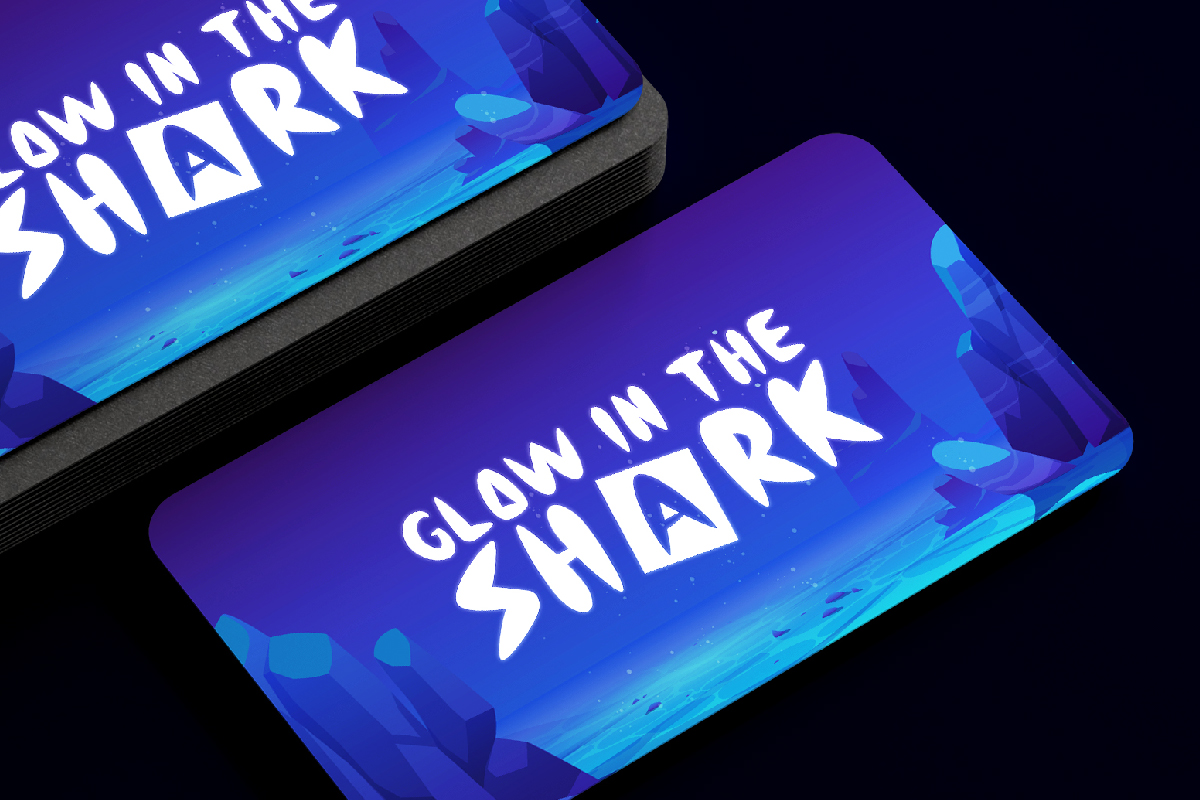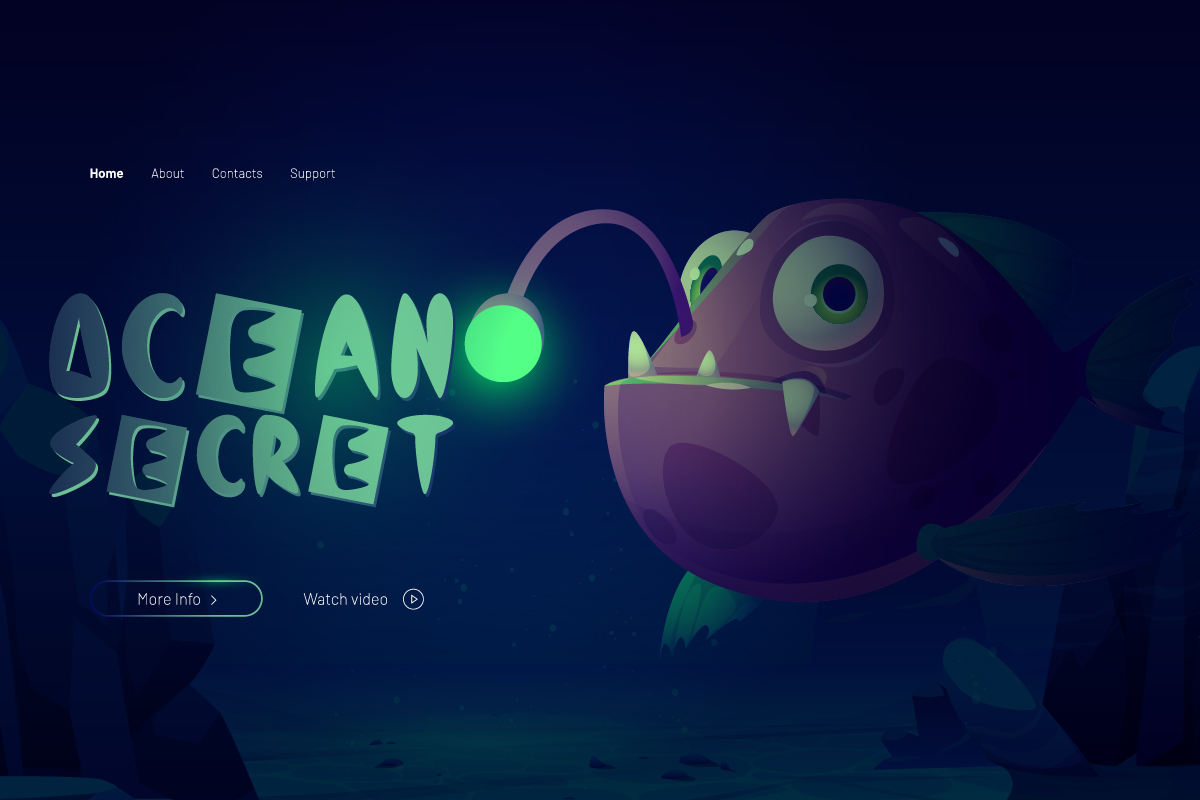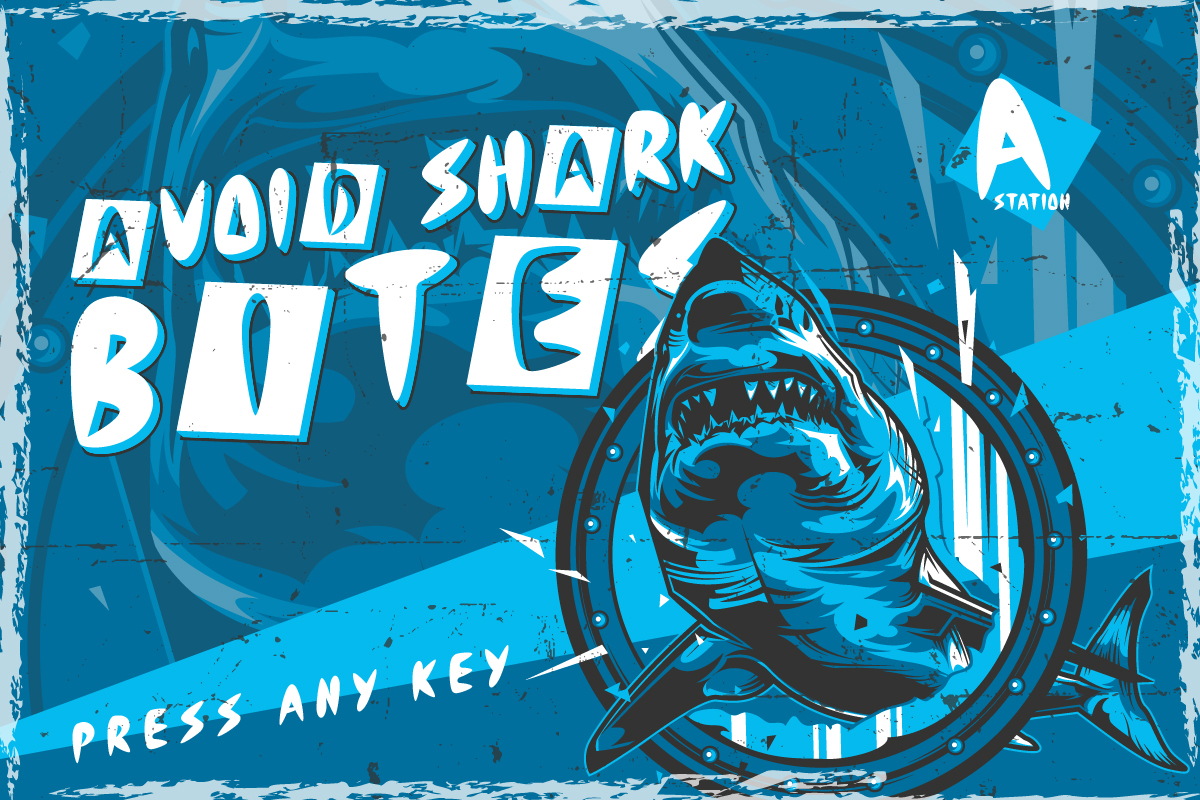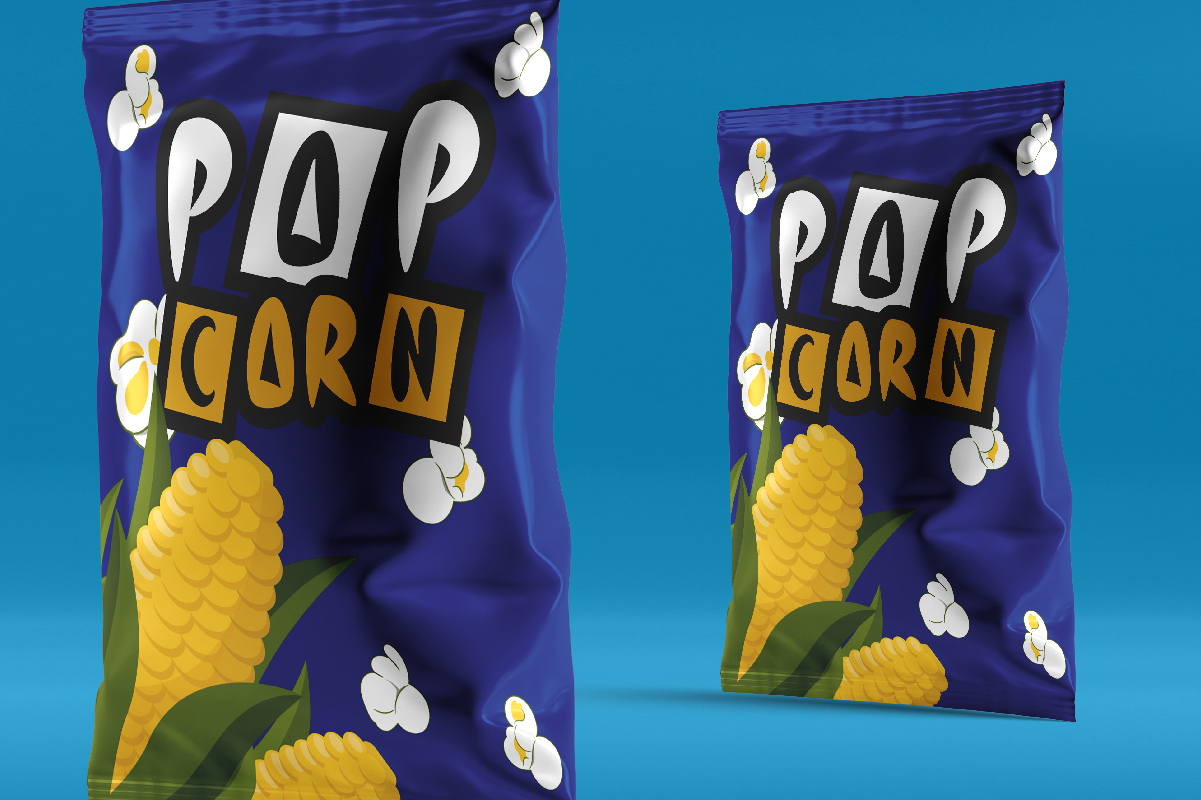
Roughshark Font
Roughshark Display Font
It’s a unique display font with comic style, created by NihStudio. This font has sharp edges like shark teeth in each letter and other unique things make it stand out. It would be perfect for many industries such as animator, cartoon things, education, food brand, games, kids stuff, movie, publishing, sports, etc.